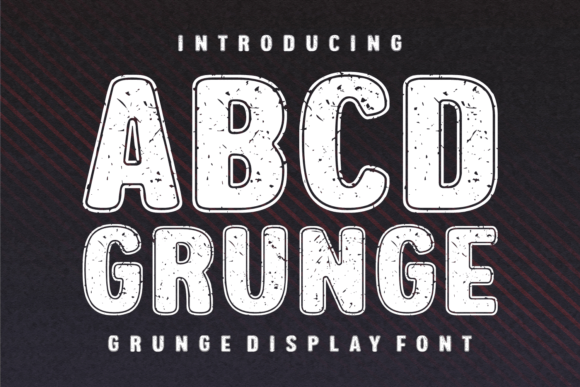
The Perfect Blend of Vintage Charm and Edginess
Have you ever stared at a blank canvas, waiting for inspiration to strike? The cursor blinks, and the page remains empty, until suddenly, a spark of creativity ignites. You start to sketch, and the lines begin to take shape. But, something’s missing. That’s where the Abcd Grunge Font comes in – a display font that infuses your design with a dash of vintage charm and a grunge-induced distress.
This unique typeface is more than just a font; it’s a game-changer for designers. Its innate sense of character makes it a fabulous match for logos, posters, and websites, while its rugged essence allows it to imprint a unique identity on T-shirt designs. Whether you’re a seasoned pro or a budding creative, the Abcd Grunge Font is the missing art piece to revitalize your projects.
Key Features of Abcd Grunge Font
Designer Review: Abcd Grunge Font
Overall, I think the Abcd Grunge Font has some great qualities that make it stand out. ✨ First, its distressed texture adds a unique touch to any design project, giving it a raw and edgy feel. ✨ The font’s versatility allows it to work well in a variety of contexts, from headings to body text, and even in logo design. ✨ Additionally, the font’s bold and chunky design makes it perfect for creating attention-grabbing titles and headlines.
However, there are some limitations to the Abcd Grunge Font that I want to mention. ⚠️ Firstly, the font can be a bit difficult to read at smaller font sizes, which may limit its use in certain design projects. ⚠️ Secondly, the font’s distressed texture can sometimes make it look cluttered or overwhelming, especially when used in large quantities. ⚠️ Lastly, the font’s bold design can make it difficult to pair with other fonts, which may limit its versatility in certain design contexts.
In conclusion, the Abcd Grunge Font is a great addition to any designer’s toolkit, but it’s not without its limitations. While it excels in certain areas, it may not be the best choice for every design project. I would recommend using it sparingly and in contexts where its unique texture and bold design can shine.
- Unique texture and distressed design
- Works well in headings, body text, and logo design
- Bold and chunky design makes it perfect for attention-grabbing titles and headlines
Tips for Getting the Most Out of ABCD Grunge Font
Use ABCD Grunge Font for creating distressed, vintage, or retro-style designs.
Pair the font with other grunge or distressed textures for a unique look.
Experiment with different font sizes, colors, and styles to create a visually appealing design.
Use ABCD Grunge Font for:
Distressed text overlays
Vintage-style posters
Alternatives to Abcd Grunge Font
1. Rockwell Font
The Rockwell Font is a serif font that is often used in formal and professional settings. It has a clean and classic look, making it a great alternative to the Abcd Grunge Font for projects that require a more polished appearance. Use Rockwell Font when you need a font that exudes sophistication and elegance. Compared to Abcd Grunge Font, Rockwell is more refined and less distressed, making it a better choice for projects that require a more traditional look.
The Great Vibes Font is a script font that is often used in creative and artistic projects. It has a handwritten feel, making it a great alternative to the Abcd Grunge Font for projects that require a more personal touch. Use Great Vibes Font when you need a font that conveys a sense of whimsy and playfulness. Compared to Abcd Grunge Font, Great Vibes is more fluid and less rugged, making it a better choice for projects that require a more delicate look.